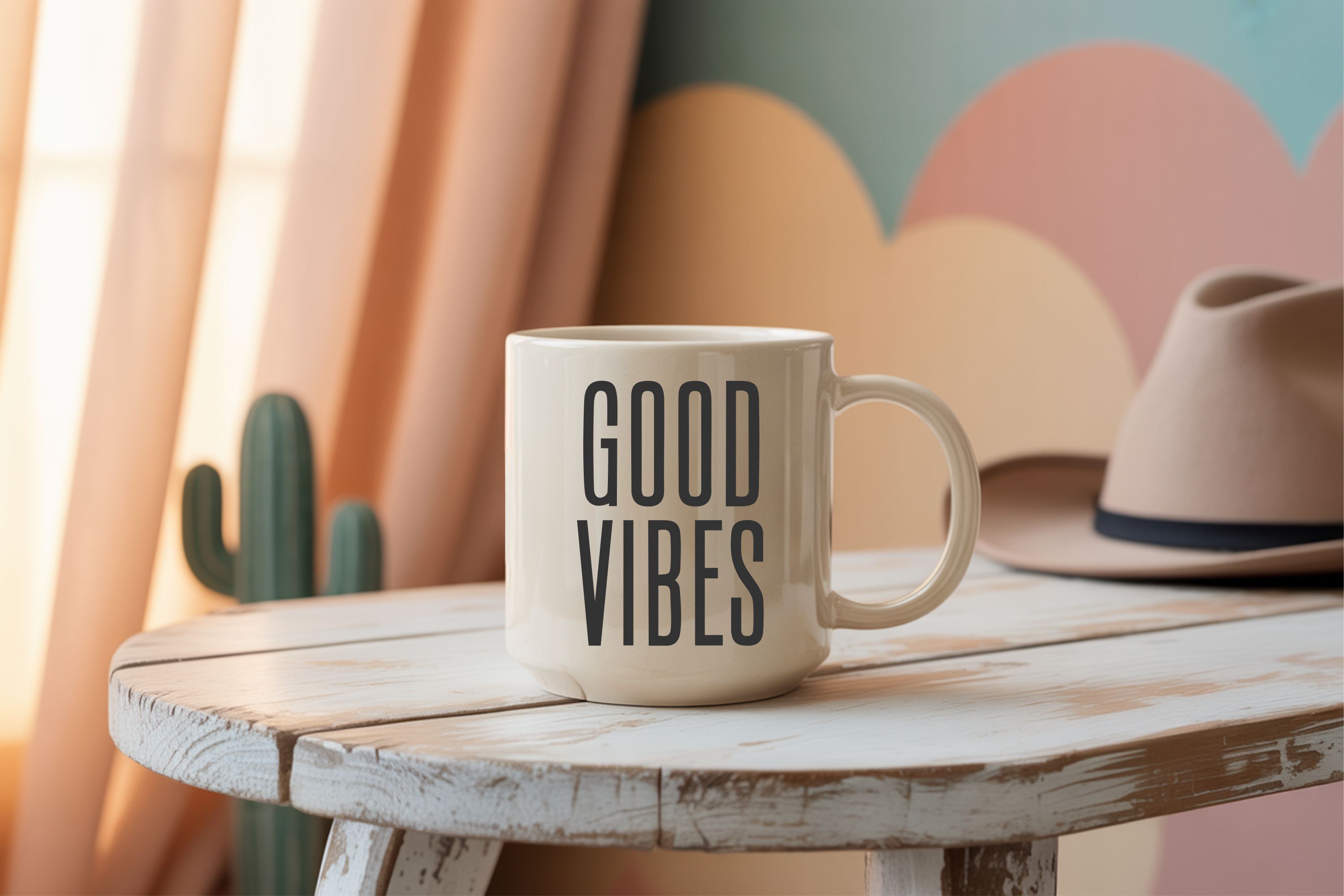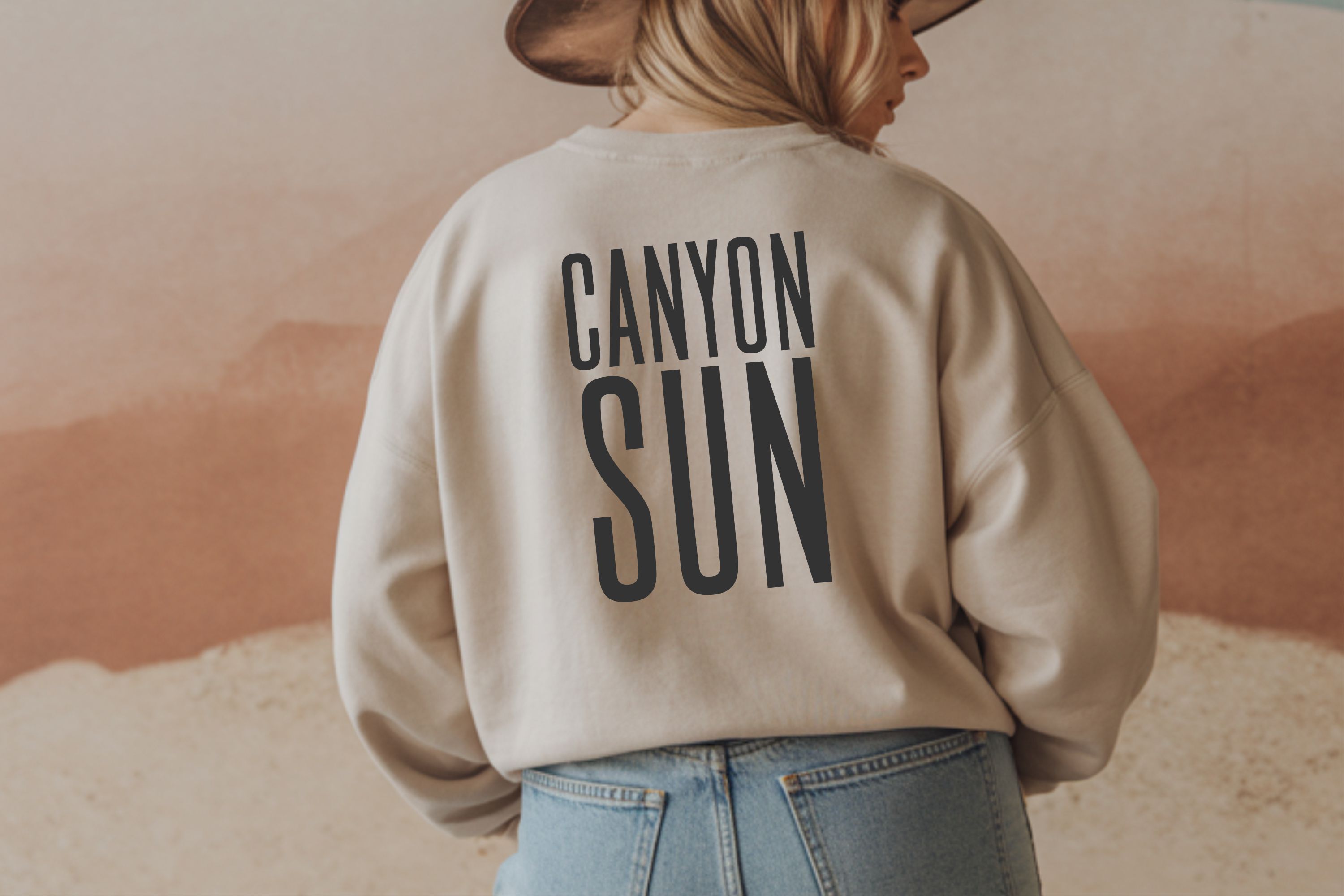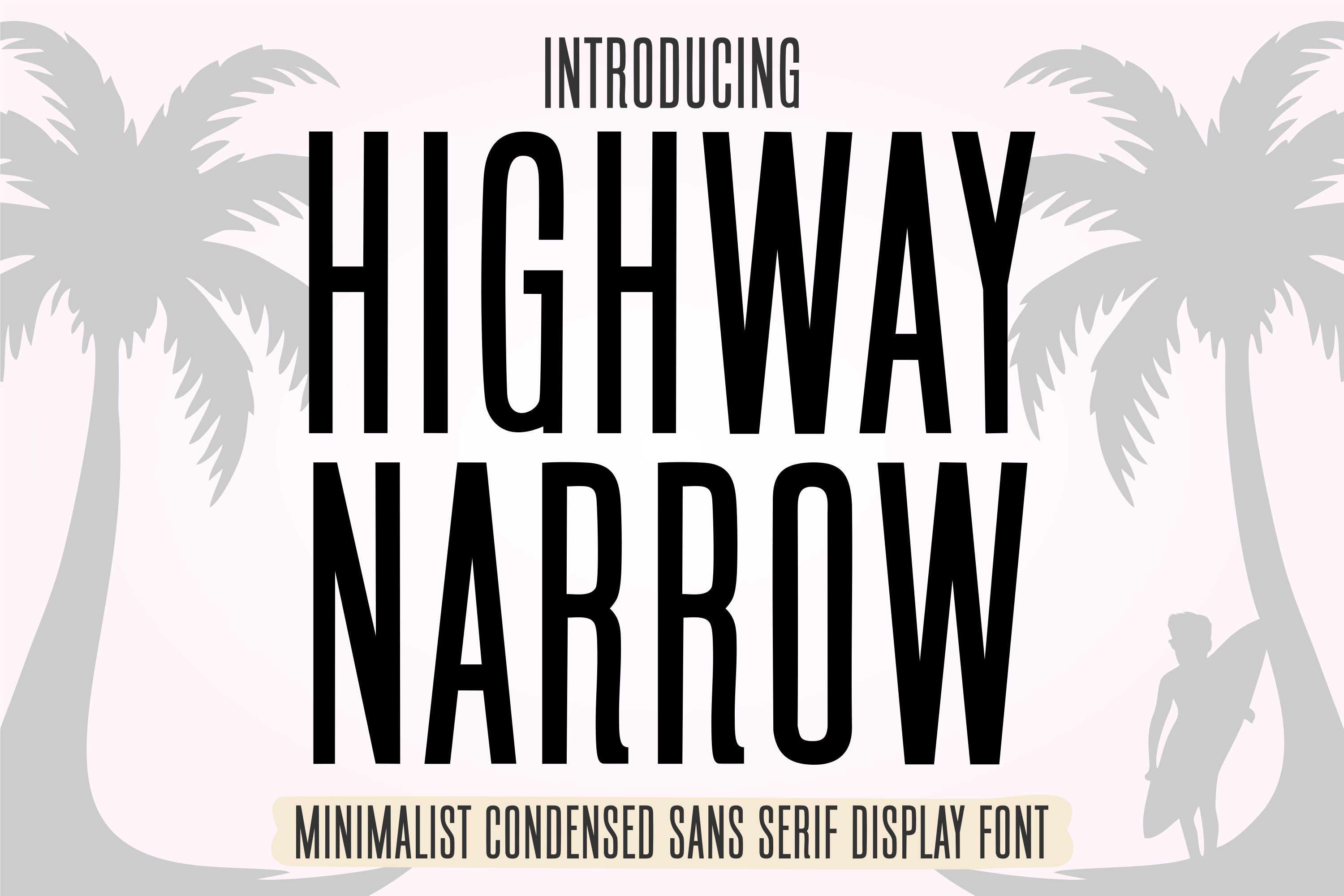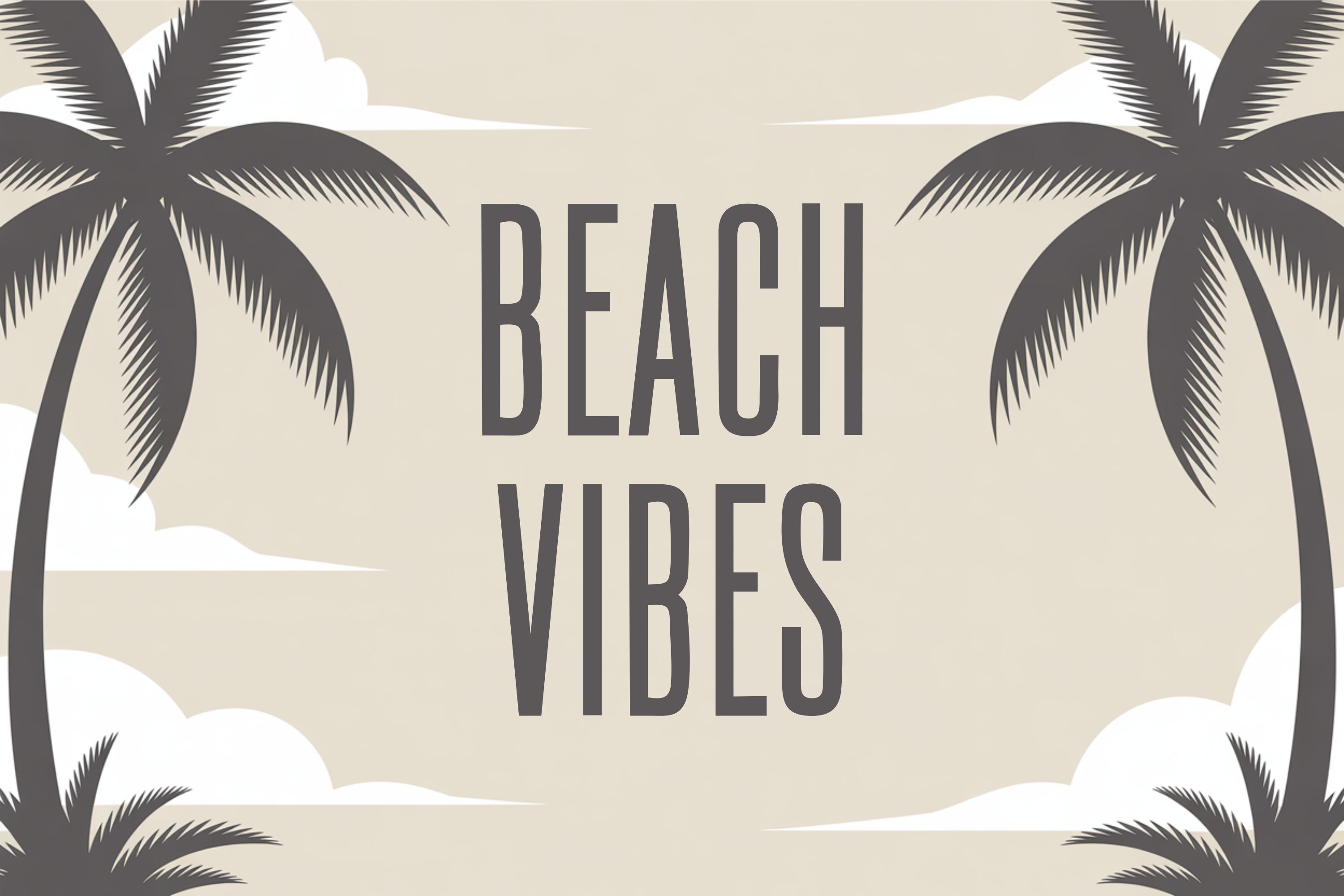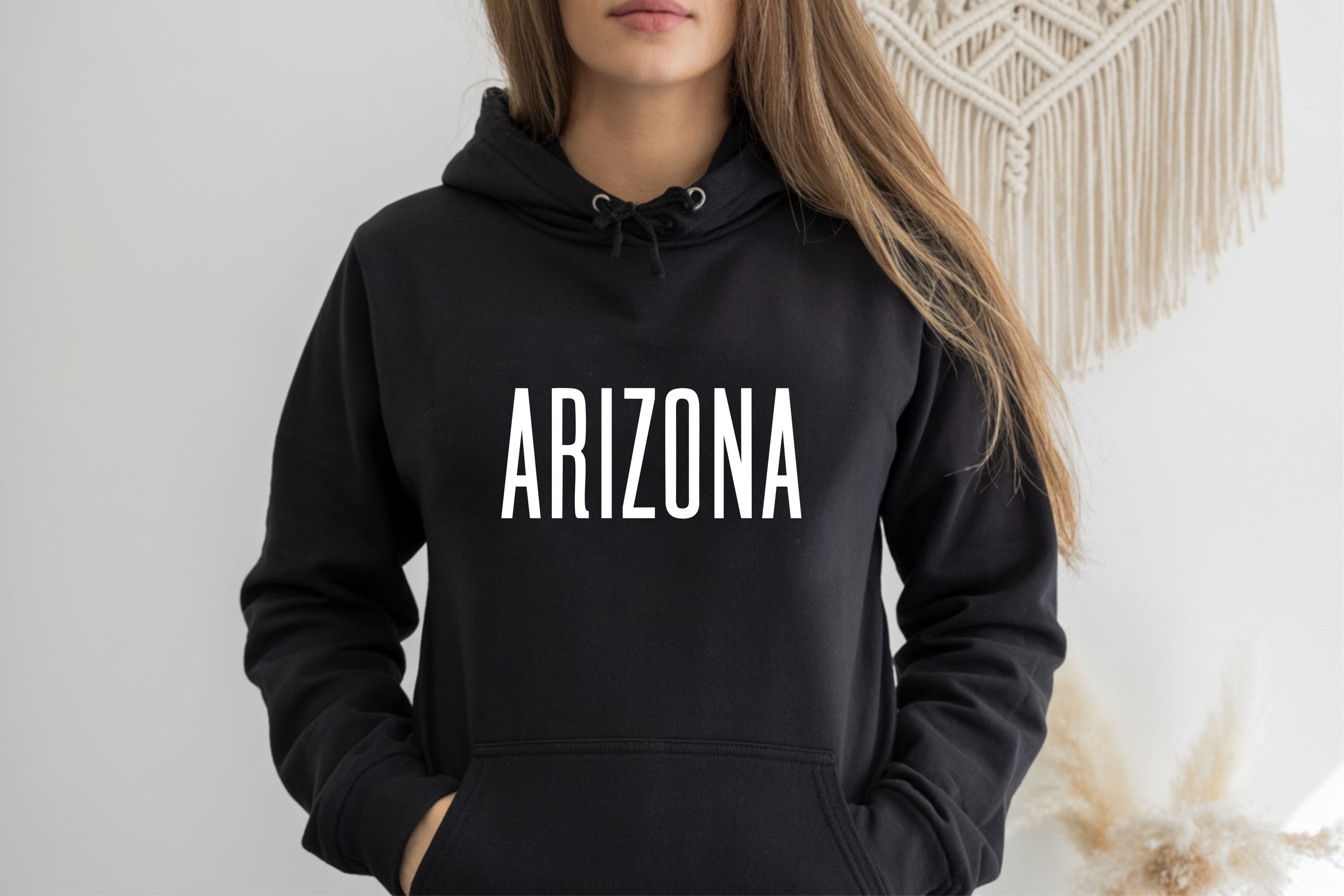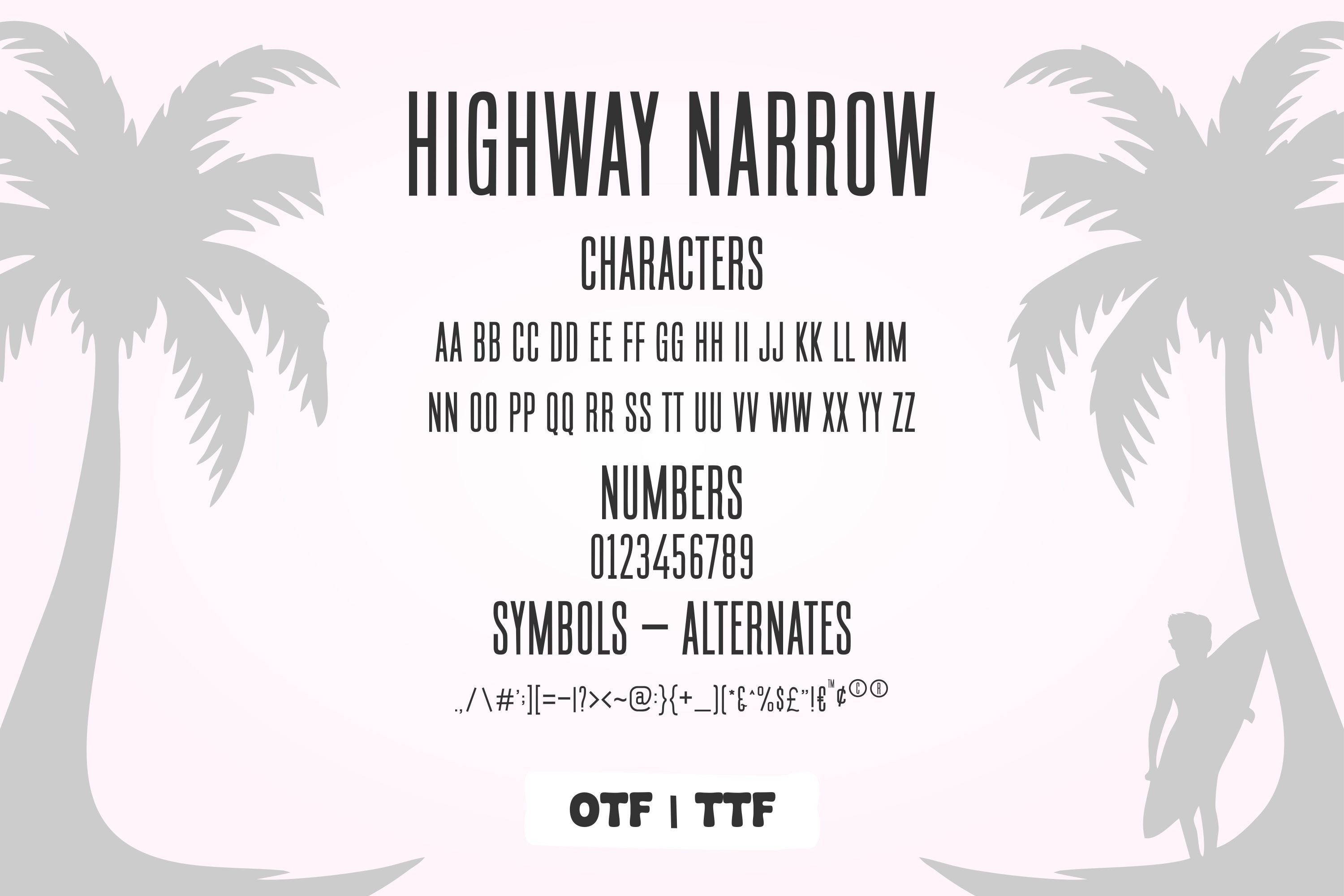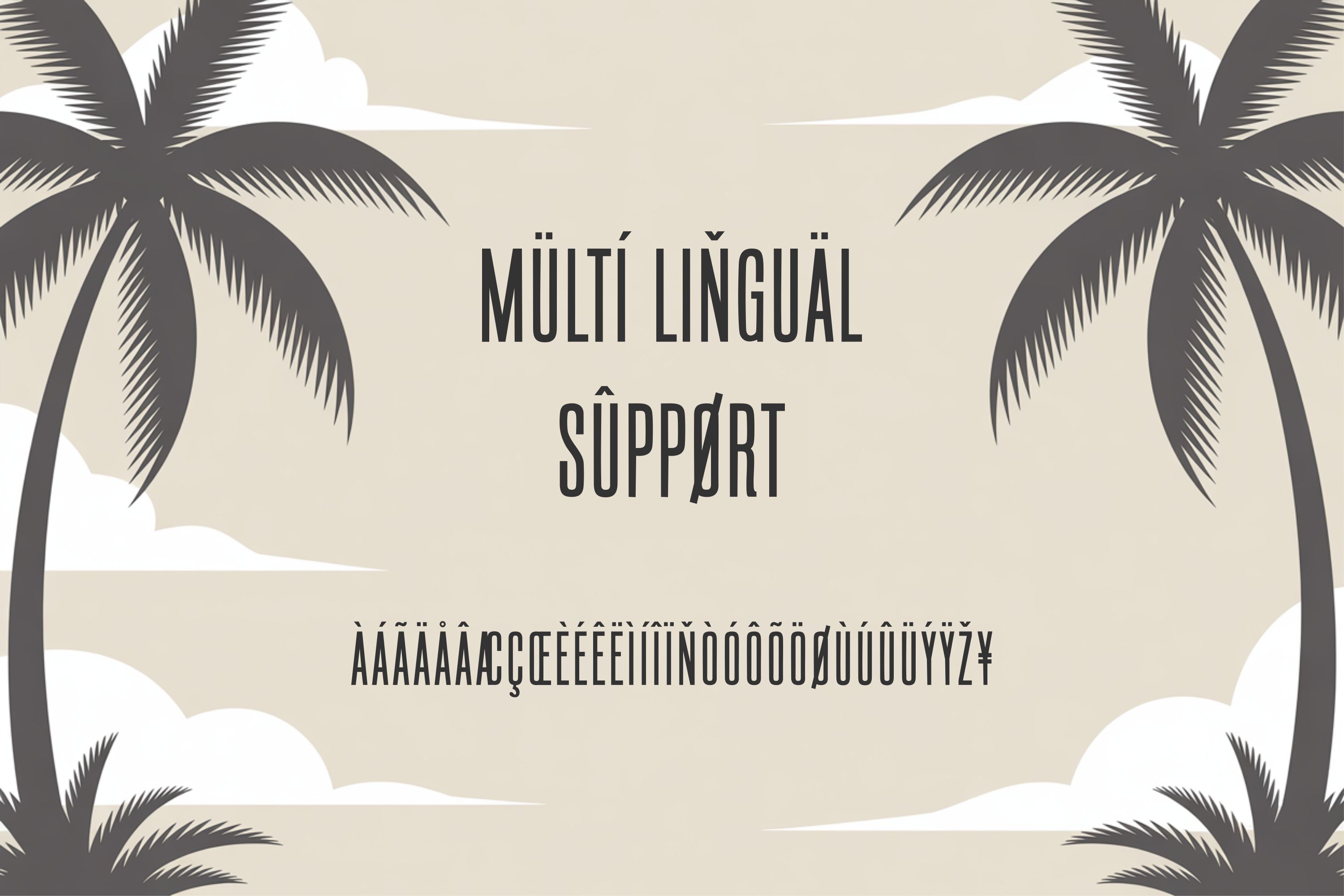
The Highway Narrow Font is a modern, minimalist condensed sans serif typeface designed to create bold, clean, and stylish typography. Its tall, narrow letterforms make it a perfect choice for projects that need a sleek and contemporary look. Whether you are designing for apparel, posters, branding, or digital artwork, Highway Narrow adds a touch of sophistication and impact to every design.
This versatile typeface is ideal for summer quotes, travel-themed graphics, sports apparel, and minimalist logos. The elegant proportions work beautifully on t-shirts, hoodies, mugs, tote bags, posters, wall art, and social media graphics. It pairs seamlessly with script fonts, making it an excellent choice for creating eye-catching typographic combinations.
Highway Narrow includes uppercase A–Z, numbers 0–9, punctuation, symbols, and full multilingual support, allowing you to create designs in multiple languages. Delivered in OTF and TTF formats, it installs easily on Mac, Windows, and design software like Canva, Photoshop, Illustrator, Procreate, and more.
Whether you're crafting Cricut projects, sublimation prints, or digital downloads, this tall and slim font ensures your message stands out. It is designed for high readability while maintaining a trendy, fashion-forward aesthetic.